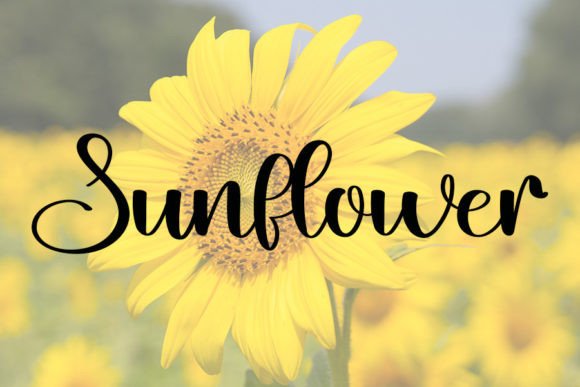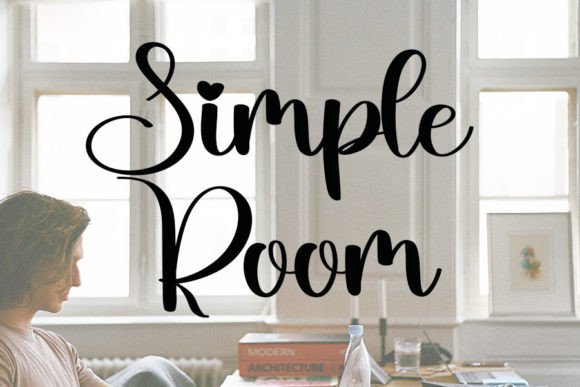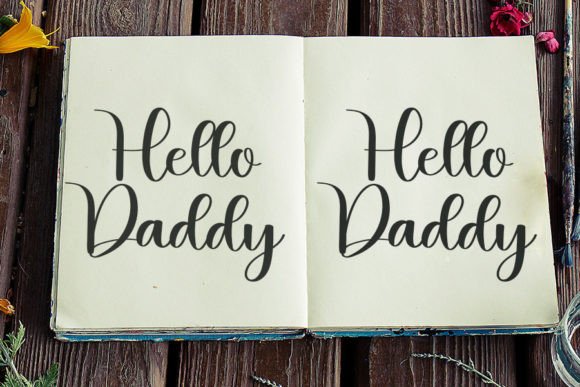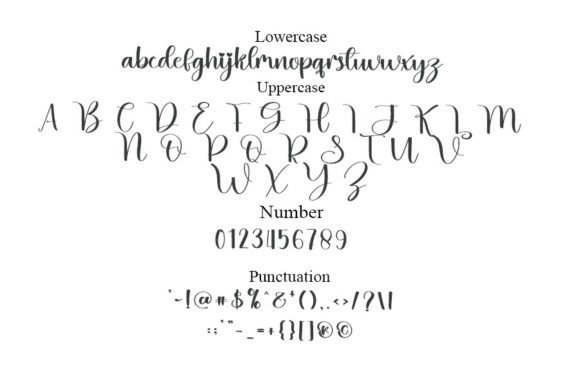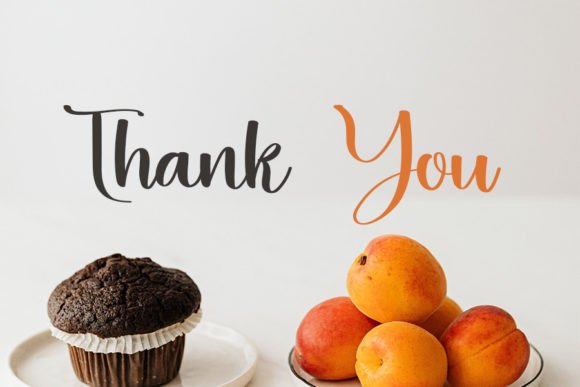
Introduction to Little Beach Font
Little Beach is an enchanting handwritten font.
This versatile script font has a wide spectrum of applications ranging from greeting cards to headlines and is guaranteed to add a romantic feel to your next project .
Key Features of Little Beach Font